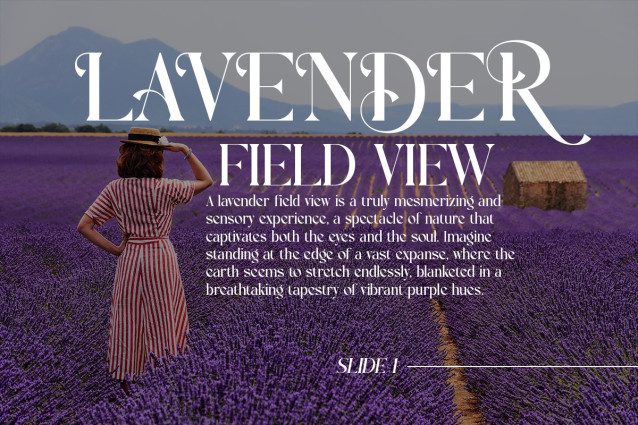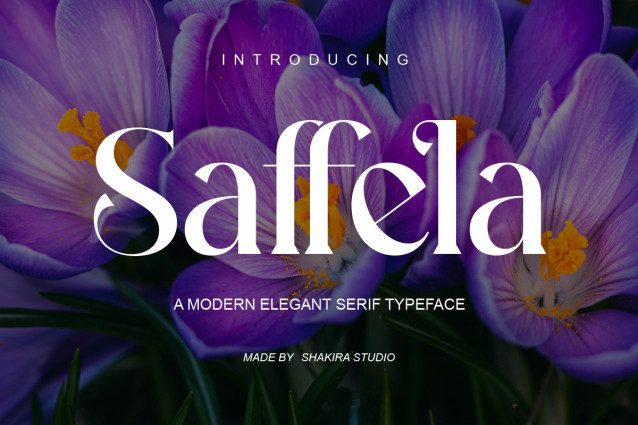
Saffela Font
Saffela Font is a refined modern serif font that blends classic elegance with contemporary design.Crafted with balanced proportions, graceful curves, and sharp details, Saffela is perfect for high-end branding, editorial layouts, invitations, and luxury packaging. Each character is meticulously designed to radiate sophistication and timeless beauty.